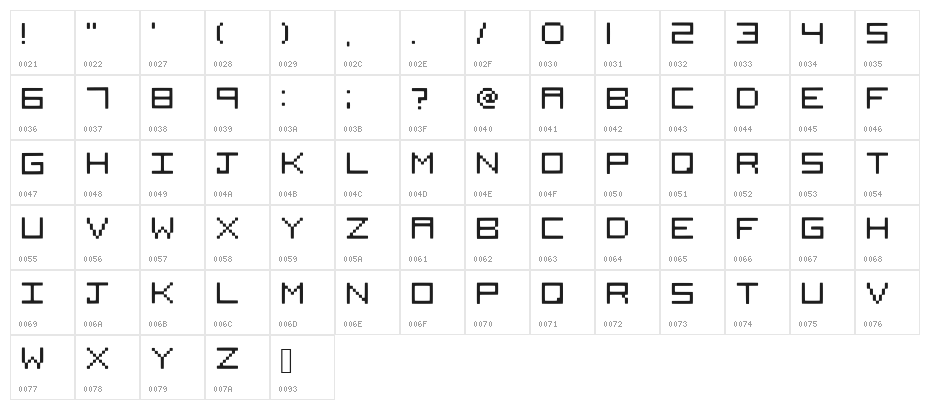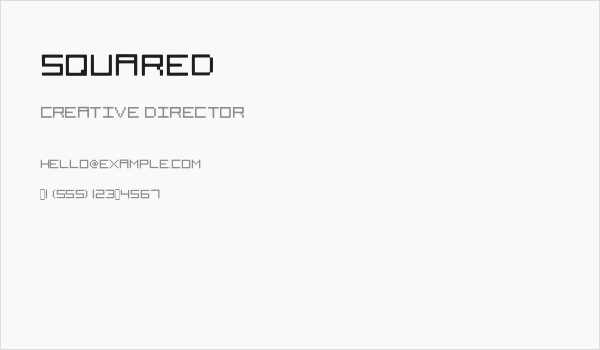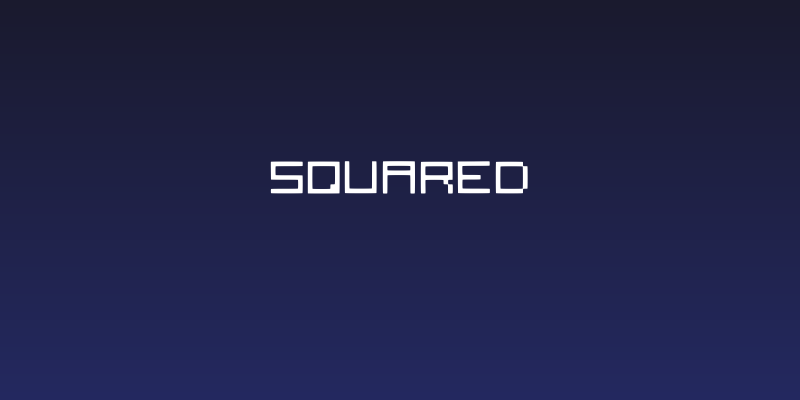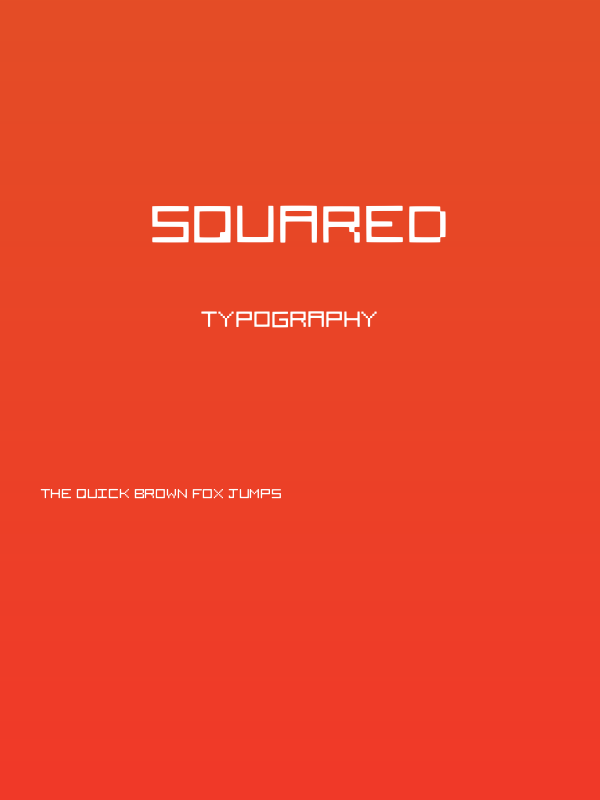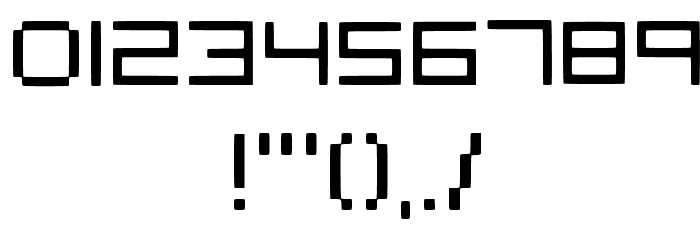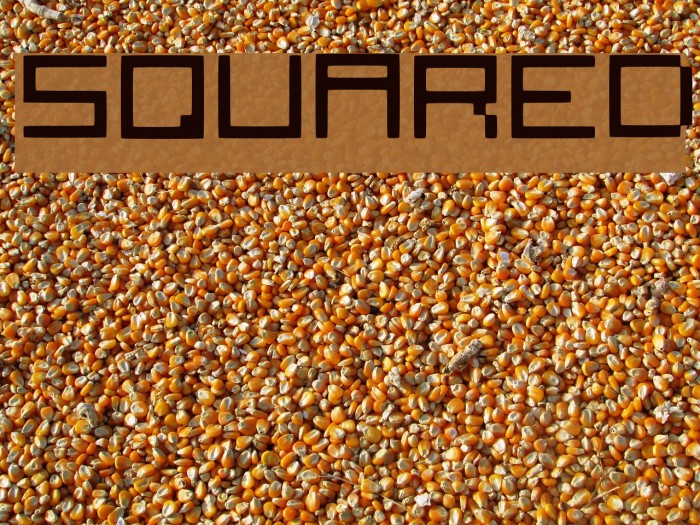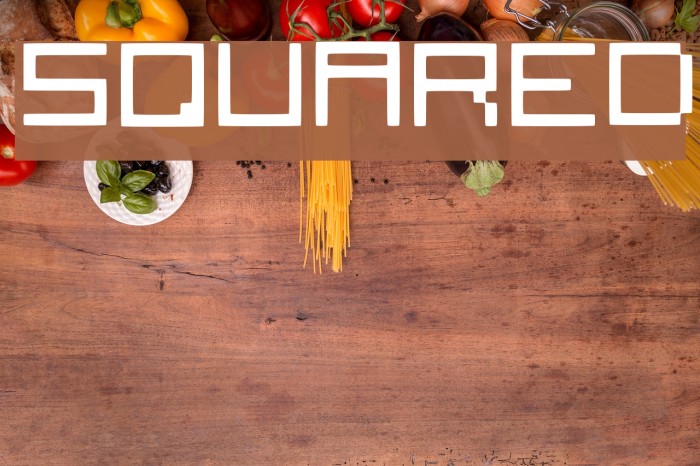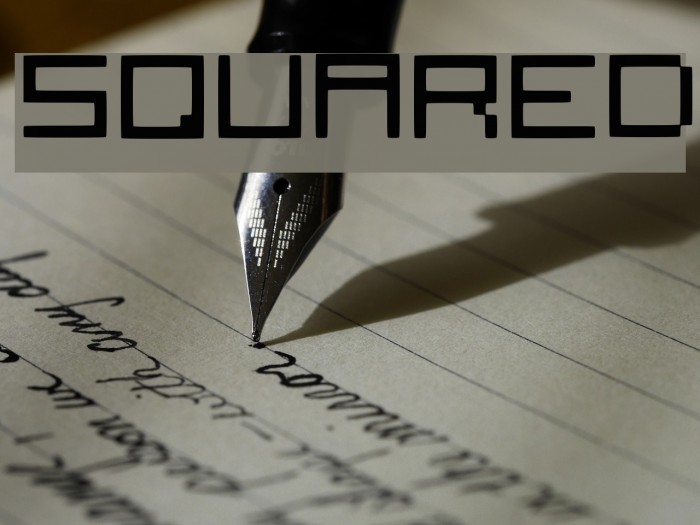
Squared Font
Squared Description
This font features a geometric, squared design that gives it a modern and digital appearance. Each character is constructed with uniform line thickness, contributing to a clean and structured look. The characters are evenly spaced, enhancing readability while maintaining a compact form. The font's design is reminiscent of digital displays or pixel art, making it suitable for technology-themed projects. Its simplicity and clarity make it versatile for various applications, from digital interfaces to print media.
| Proposed Projects | Ideal for technology-themed designs, digital interfaces, video game graphics, and modern branding. |